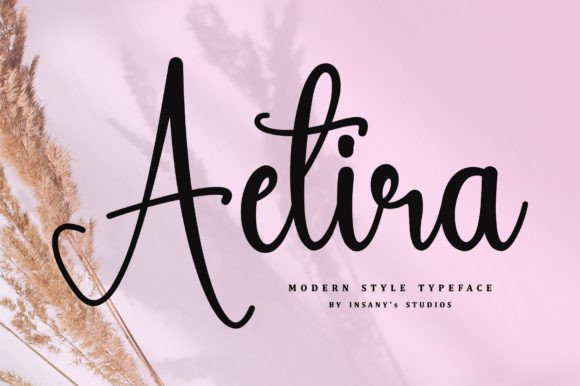
Journey into the world of Aetira Font, a captivating script lettering that combines simplicity, softness, and elegance. Crafted by the talented hands at INSANY'S STUDIOS, Aetira offers an array of possibilities to transform your designs into visual masterpieces.
Aetira's allure lies in its versatility, seamlessly adapting to a myriad of creative projects. Its presence adds a touch of personalization and handmade charm to wedding invitations, thank you cards, and quotes, capturing the essence of heartfelt emotions and special moments. Aetira's graceful curves and flowing lines lend a touch of sophistication to greeting cards, logos, and business cards, leaving a lasting impression on your audience.
For T-shirt designers seeking fonts that resonate with their creative vision, Aetira emerges as a true game-changer. Its enchanting characters dance across fabrics, infusing T-shirts with a unique and expressive style. Whether you're aiming for a casual, playful look or a touch of understated elegance, Aetira's versatility shines through, turning ordinary T-shirts into captivating expressions of creativity.
Embrace the allure of Aetira Font, a versatile and expressive script that elevates your designs beyond the ordinary. Experience the joy of crafting personalized handwritten notes, creating stunning T-shirt designs that speak to your audience, and leaving an unforgettable mark on every project you undertake. Aetira is more than just a font; it's an artistic gateway to a world of creative expression, inviting you to explore the depths of your imagination.